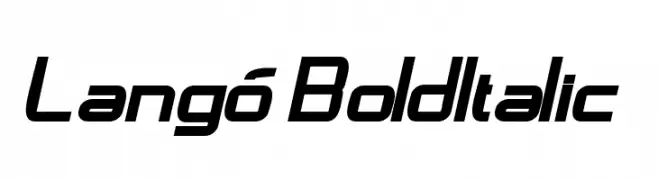
A bold, geometric font with strong, angular characters ideal for impactful designs.
A bold, modern font with a slanted, dynamic style and unique cut-through lines.
A dynamic, futuristic font with sharp, angular lines and a slanted orientation.
A bold, geometric font with a strong, athletic appearance.
A bold, blocky font with a strong, sports-inspired design.
A modern, italicized font with a sleek and dynamic appearance.
A dynamic, italicized font with sharp angles and a futuristic style.